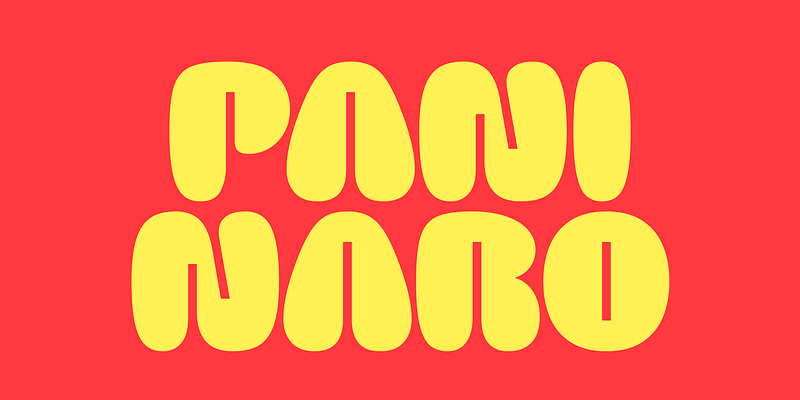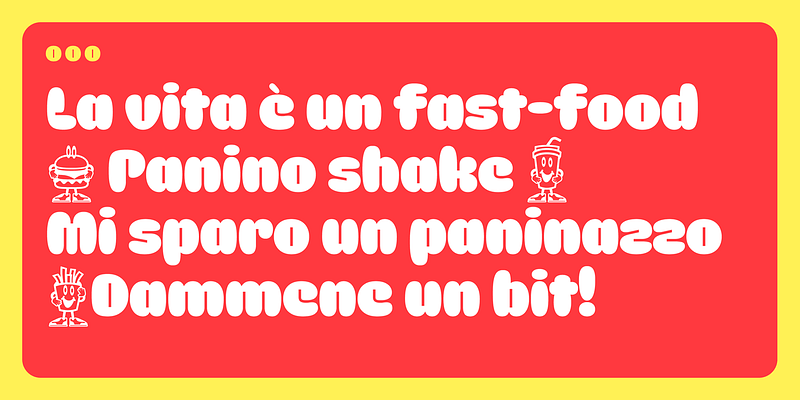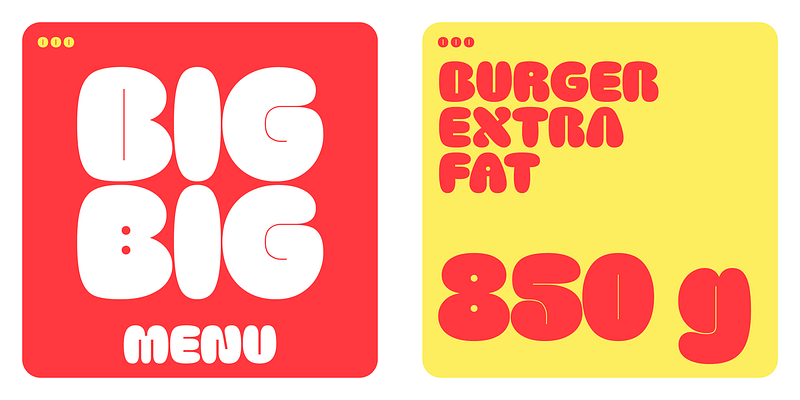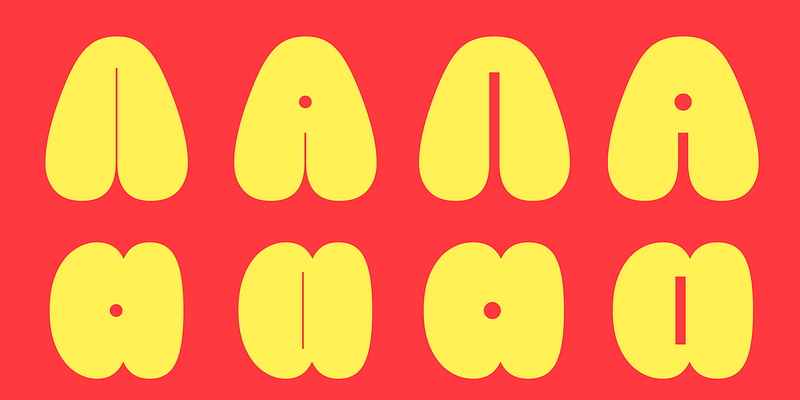
Burghi is a display font. Inspiration came from the graphic styles of the early fast-food joints and especially the logo (perhaps influenced by Joseph Churchward’s Marianna typeface) of the first Italian US-style fast-food chain.